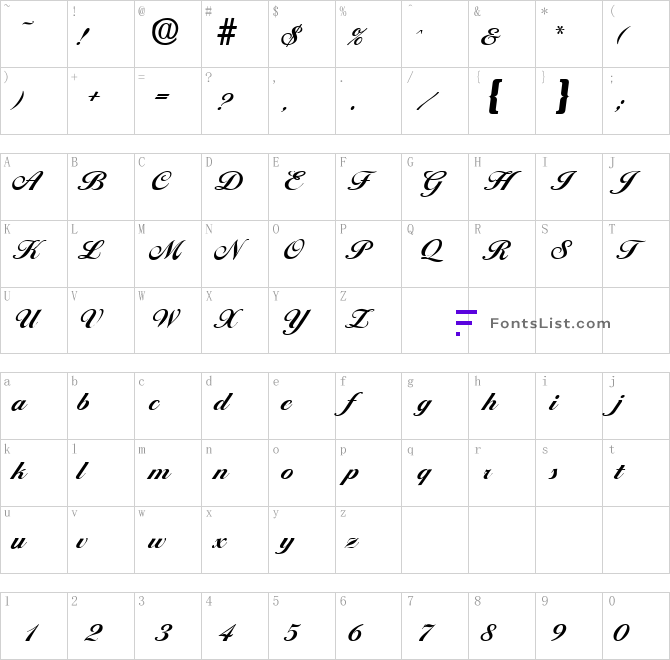
Ballantines-Bold.ttf is a very beautiful artistic font, Ballantines-Bold.ttf is widely used in the design and printing of various books and pictures,Ballantines-Bold.ttf has a strong visual impact,Ballantines-Bold.ttf is a commonly used font in newspapers, magazines and books, and is used in posters, e-commerce Poster design, store design, logo design, font design and other fields.Ballantines-Bold.